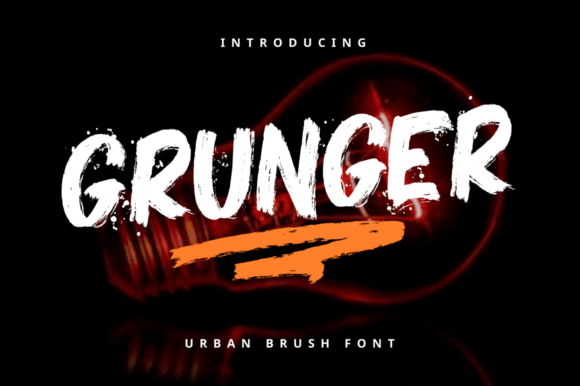
Looking to add a touch of masculinity and strength to your design? Look no further than Grunger Font, created by Rissyletter Studio. This display font is perfect for those seeking font styles for lettering that exude power and ruggedness.
Grunger Font is unlike any other font you've come across. It was meticulously crafted using dry brush strokes and natural handwriting, resulting in a unique and captivating look. This font will give your designs a raw and edgy feel, making them stand out from the crowd.
Whether you're working on apparel designs, logos, branding materials, brochures, or event posters, Grunger Font is the ultimate solution. Its versatility allows you to use it in various design needs, giving your projects a strong and impactful presence.
Imagine your clothing line featuring Grunger Font on your t-shirts, hoodies, and hats. The bold and expressive strokes will instantly catch the eye of those seeking a powerful and confident look. With this font, you can effortlessly convey the message of strength and masculinity.
Branding is crucial for any business, and Grunger Font can be the key to creating a memorable and impactful brand identity. Use it in your logos, packaging, and marketing materials to leave a lasting impression on your target audience. The ruggedness of this font will communicate authenticity and reliability, making your brand instantly recognizable.
Event posters are meant to grab attention and generate excitement. Grunger Font's bold and gritty appearance will ensure that your posters don't go unnoticed. Whether you're promoting a music festival, a sports event, or an art exhibition, this font will set the right tone and create anticipation among your target audience.
Incorporating Grunger Font into your design projects will give them a unique personality and a touch of rebelliousness. It's time to break free from the conventional and elevate your designs with this captivating font. Let your creativity run wild and watch as your work becomes a true reflection of your vision and style.
Don't settle for ordinary font styles. Choose Grunger Font and unleash its power to transform your designs into bold and impactful creations. Embrace the masculinity and strength it offers and make a statement that won't be forgotten.